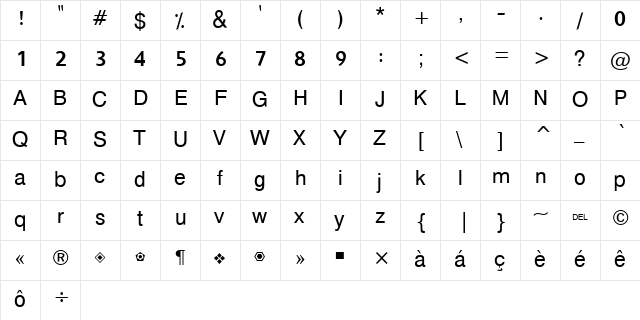
Hacen Beirut Lt X3 Regular
| Foundry | Muhammad Hacen |
| Designer | Muhammad Hacen |
Design Context for Hacen Beirut Lt X3 Typeface
Hacen Beirut Lt X3 is a composed and adaptable typeface that performs quietly and consistently across a wide range of design contexts. The delicate stroke weight brings airiness and refinement to layouts.